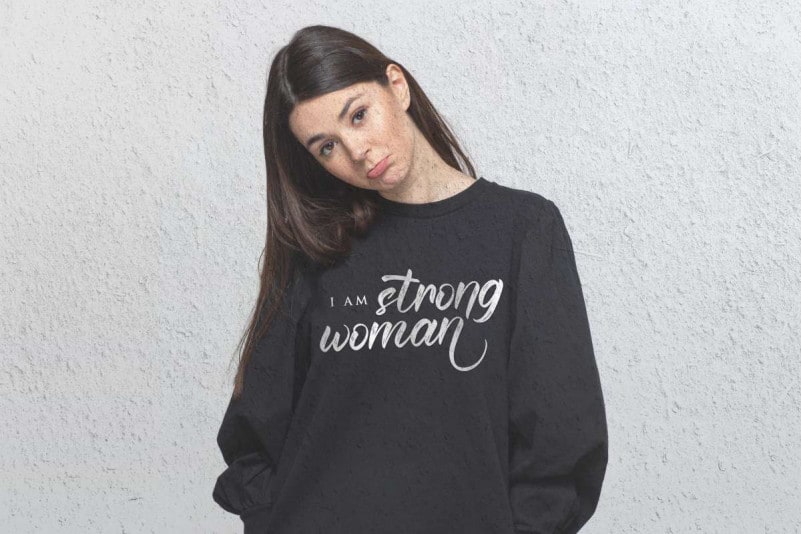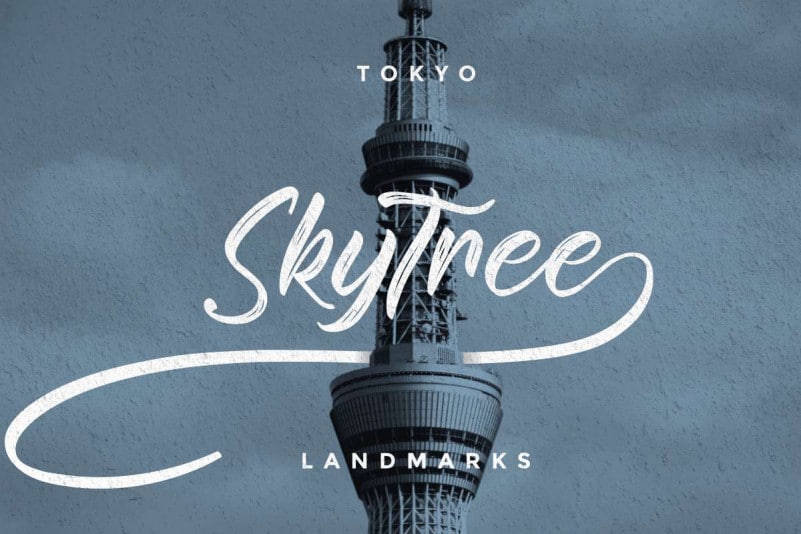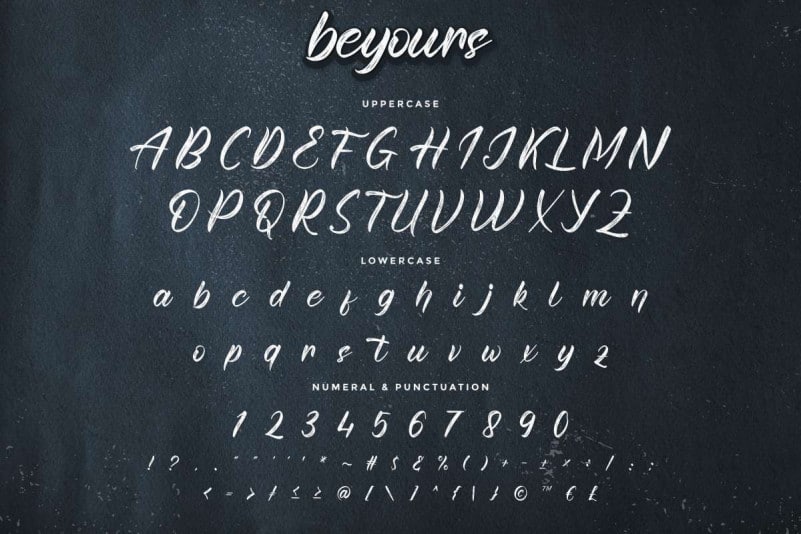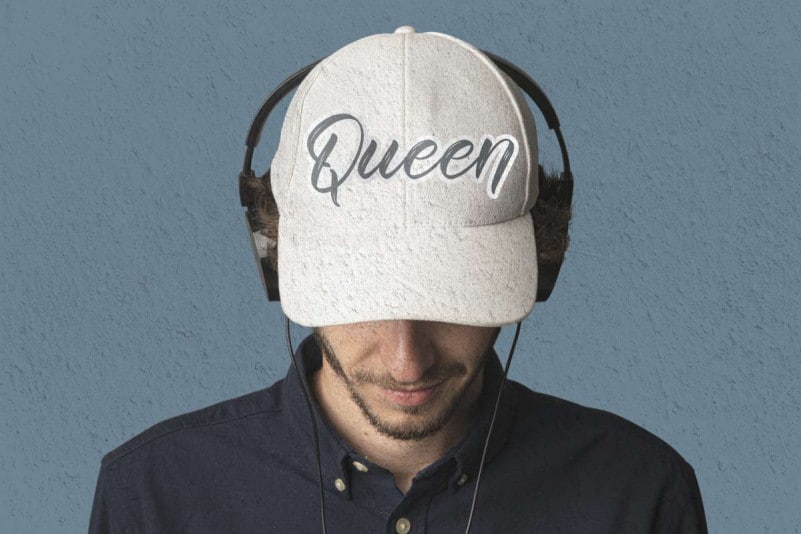
Beyours Calligraphy Script Font
Beyours Calligraphy Script Font is a new calligraphy script typeface. The style of this font are elegant, luxury, glamour, modern and sophisticated brush pen.